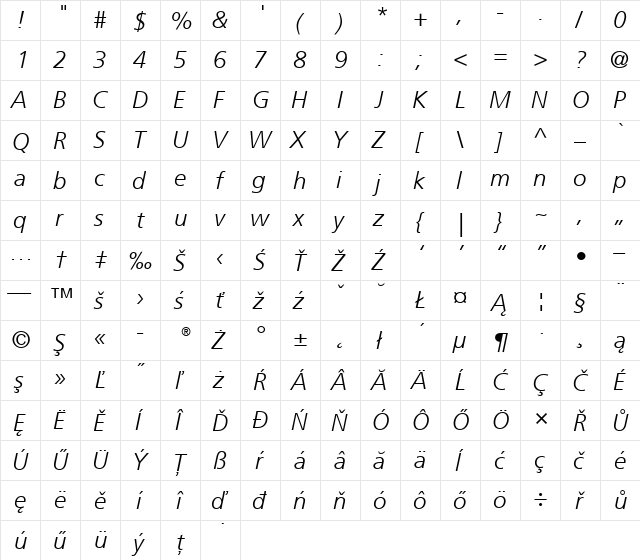
Frutiger CE 45 Light Italic Font Preview
Frutiger CE 45 Light Italic
Design Context for Frutiger CE 45 Light Typeface
Frutiger CE 45 Light takes a measured approach to typography — its balanced proportions and neutral character make it a reliable workhorse for both digital and print work. The slanted form adds forward momentum and visual energy. The delicate stroke weight brings airiness and refinement to layouts.
Pro Tip: Use Frutiger CE 45 Light for emphasis, pull quotes, and subheadings where its slanted energy can add rhythm to the layout.